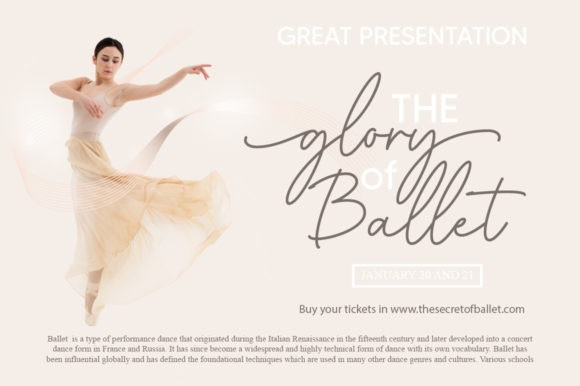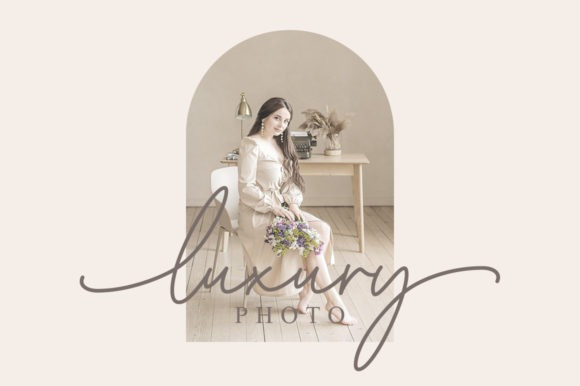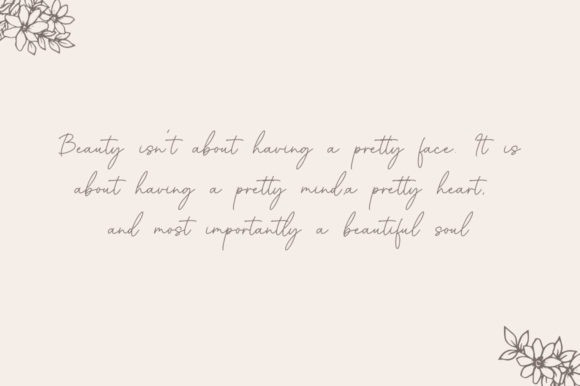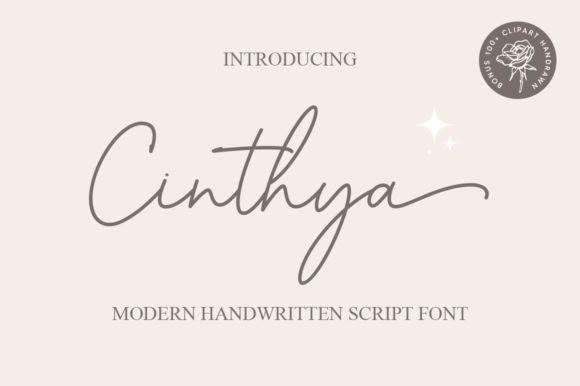
Cinthya Script Font is a modern and awesome handwriting typeface with extraordinary charm. This will change any design idea to be beautiful and perfect! It is the best choice for creating eye catching logos, branding and quotes. This font is PUA encoded which means you can access all of the glyphs and swashes with ease!